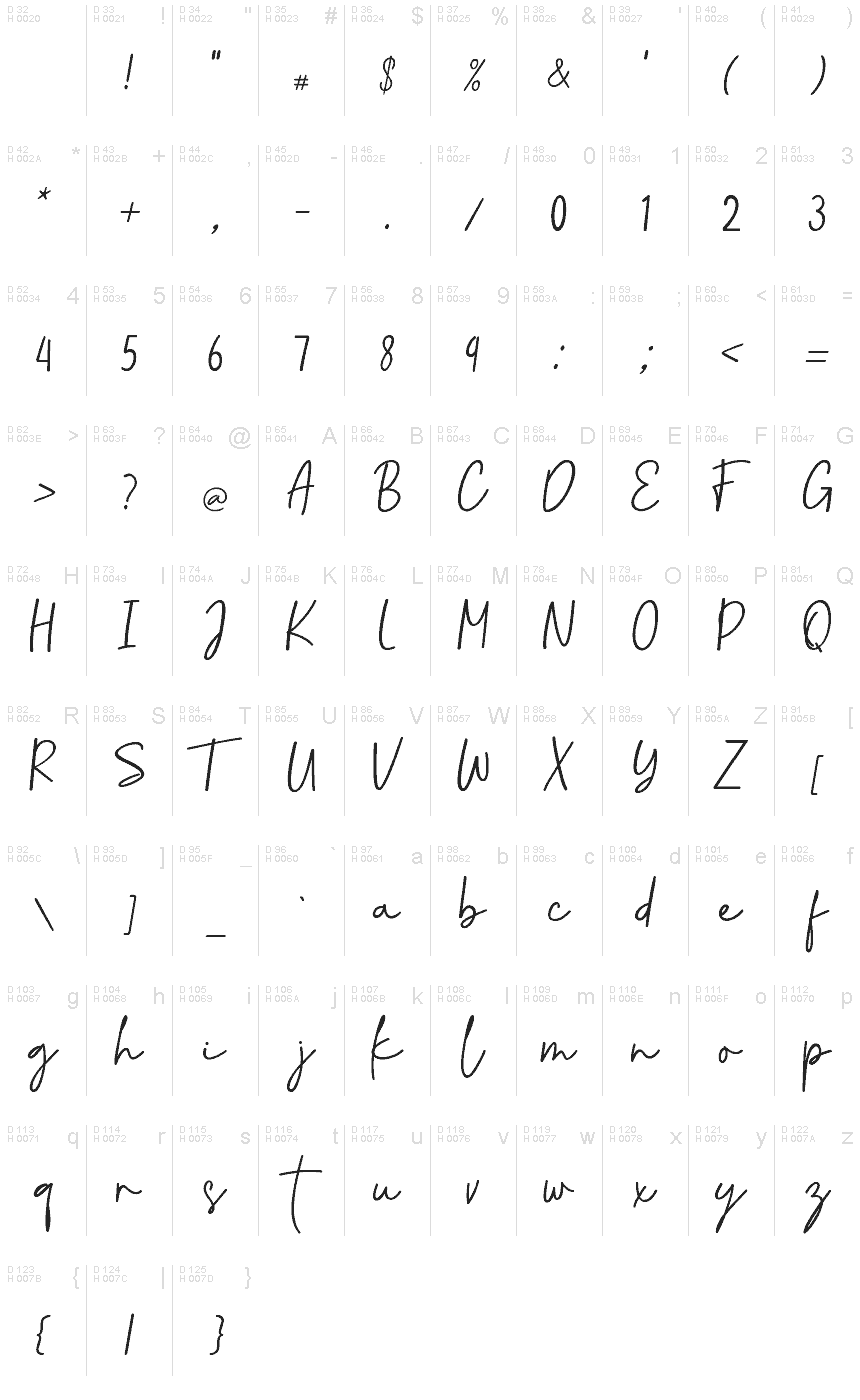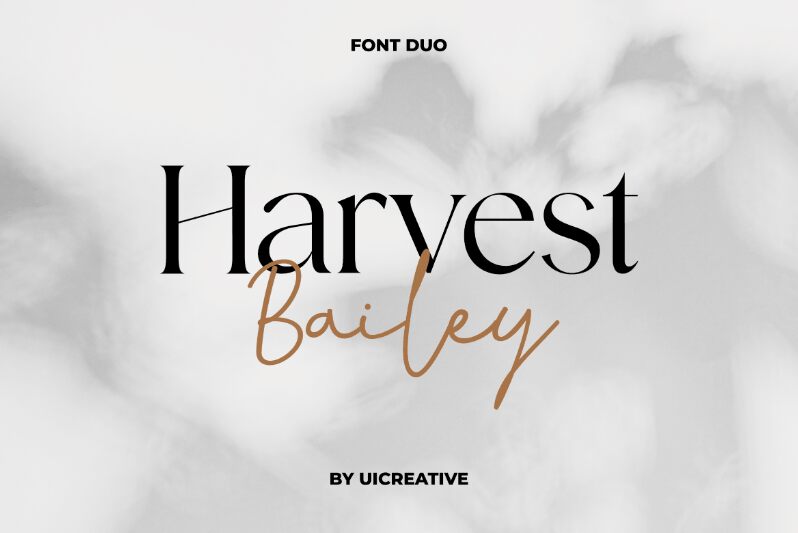
Harvest Bailey Script
Harvest Bailey is a free handwritten script font designed by UI Creative.
The font carries a natural and vintage vibe. It is ideal for both print and web projects including logotypes, logos, headlines, posters, wedding designs, fashion apparel designs, invitation cards, quotes, etc. Make sure to check out UI Creative for more amazing resources and fonts.